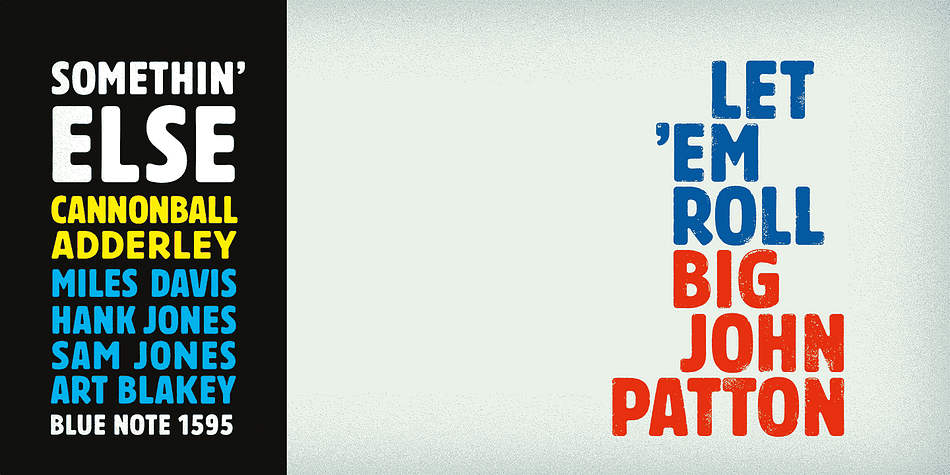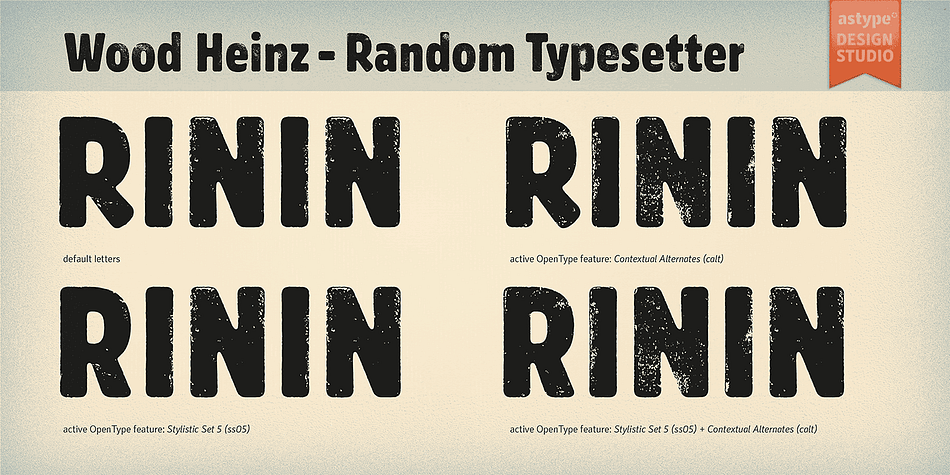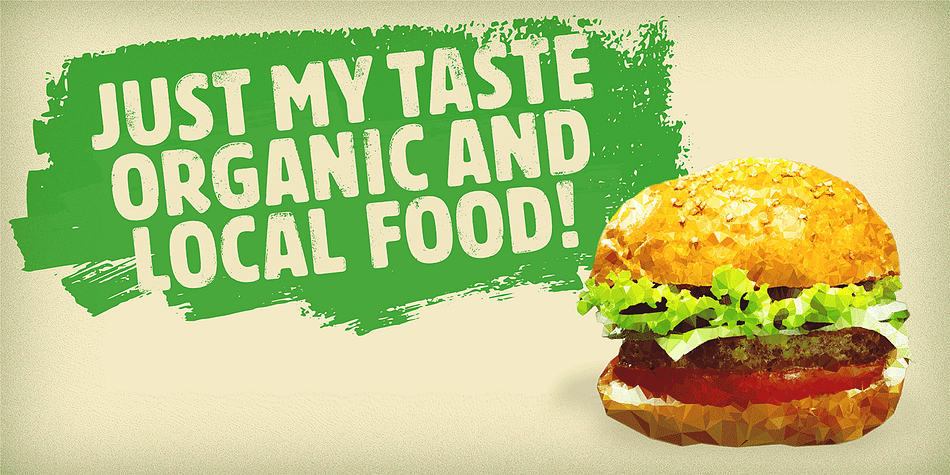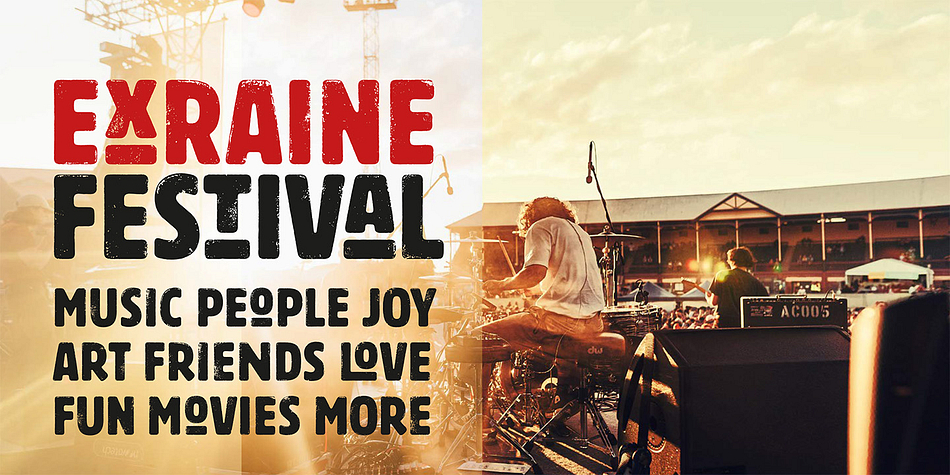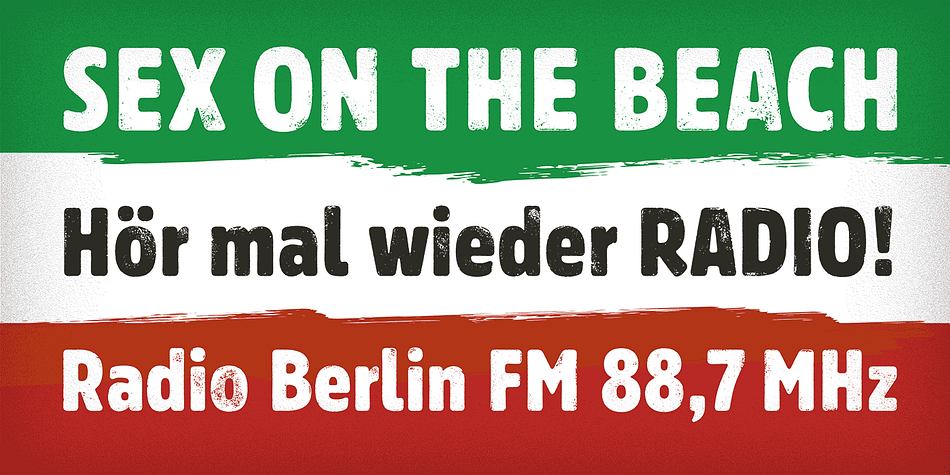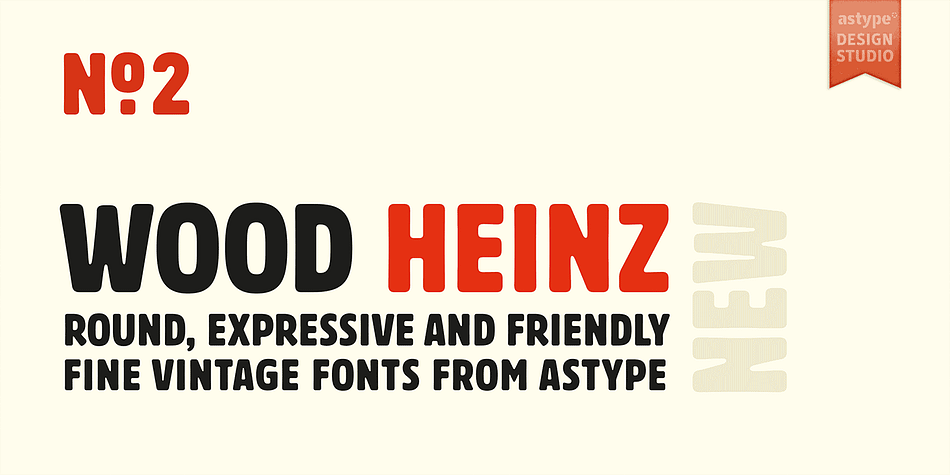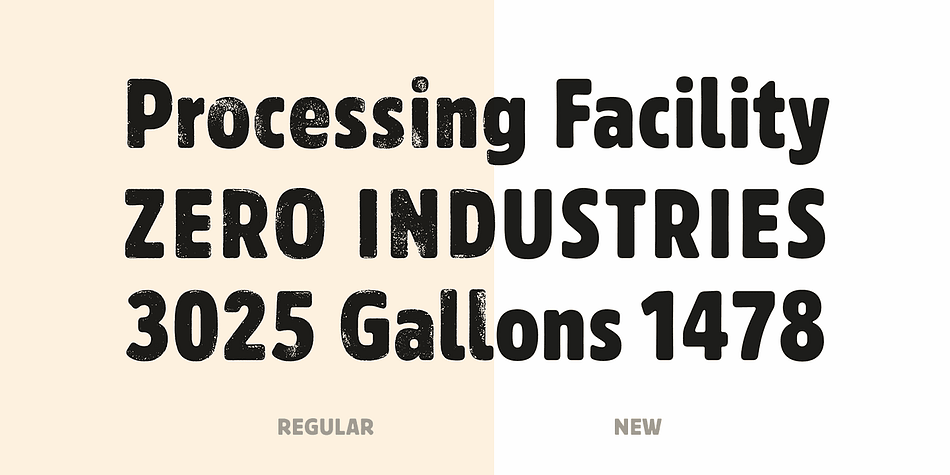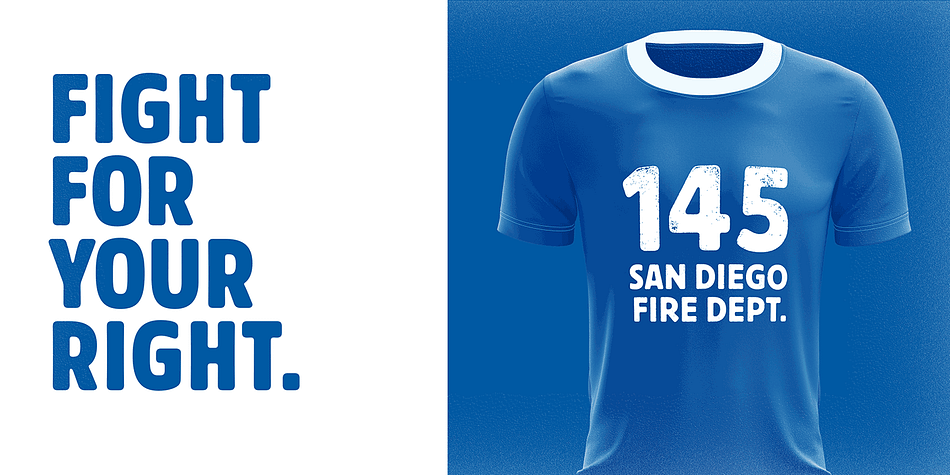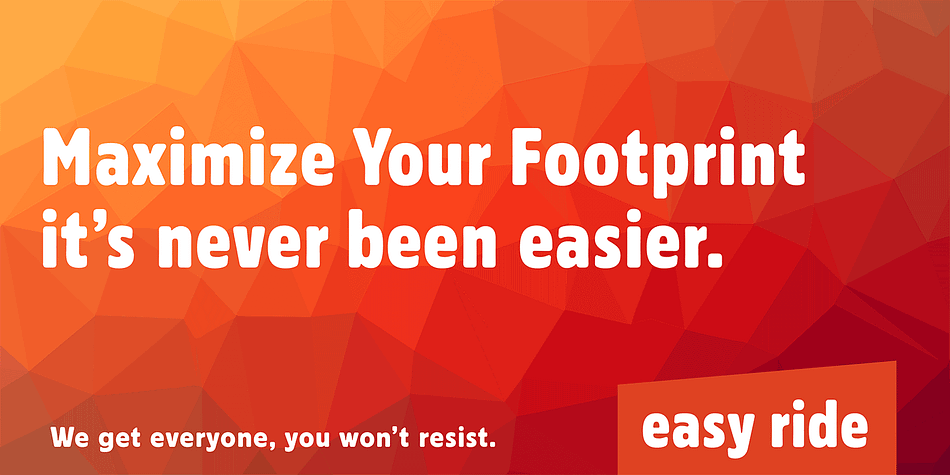
Designed by Andreas Seidel, Wood Heinz No.2 is a sans serif and wood type font family. This typeface has four styles and was published by Astype.
Wood Heinz No.2 - the close friend of Wood Heinz No.4
The Regular font style offering up to four »printed look« variations of all the Latin base letters and figures. An OpenType letter rotator is build into the fonts to emulate the randomness of wood type printing on live typing. Please ensure the OpenType feature Contextual Alternates (calt) is turned on in your text setting application.
You can switch manually to the alternate letters by using the Stylistic Sets 1–4. Stylistic Set 5 will activate the more common look of the capital letter R with a straight leg.
The New font style has clean outlines and of course the alternate letter R.
Wood Heinz No.2 and No.4 working seamlessly with each other. You can both mix them easily.